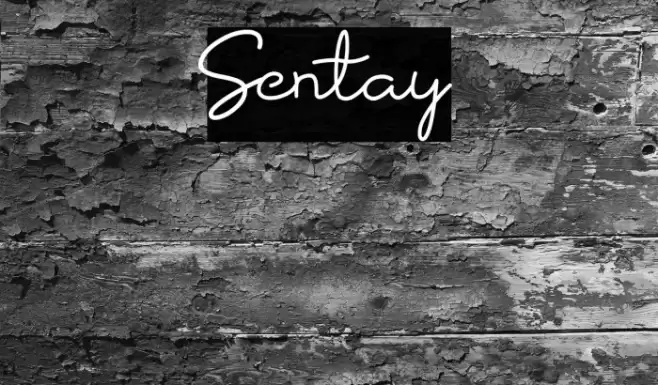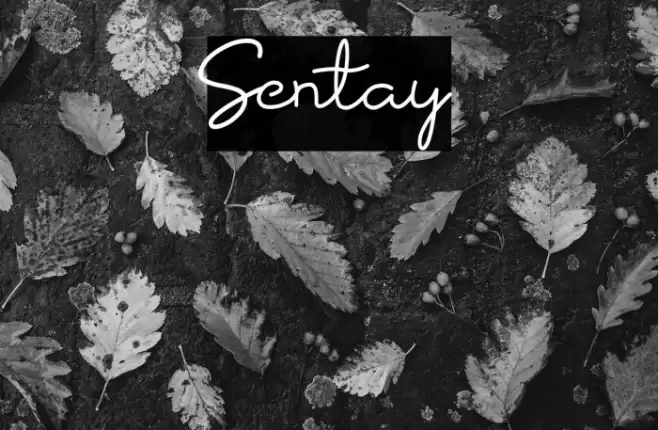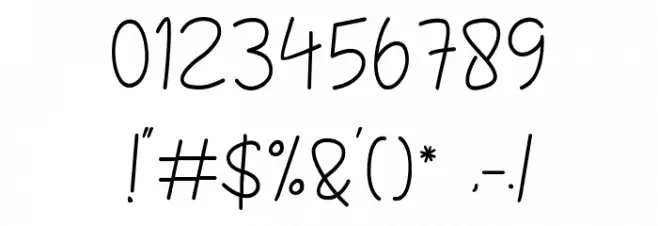
Sentay Font
Sentay Description
This font features a fluid and elegant script style, characterized by its smooth, flowing lines and a handwritten appearance. The uppercase letters are bold and slightly slanted, giving a sense of movement and grace. The lowercase letters maintain a consistent flow, with rounded forms and a natural, cursive style. Numbers and special characters are designed to match the overall aesthetic, ensuring a cohesive look across all text. The font's organic and personal touch makes it ideal for projects that require a human touch or a sense of elegance.
A fluid, elegant script font with a handwritten style from Regular fonts.
- Proposed Projects: Ideal for wedding invitations, personal branding, greeting cards, and elegant packaging designs.
- Overall Style: Elegant, Handwritten
- Use Case: Logos, Invitations, Personal Branding